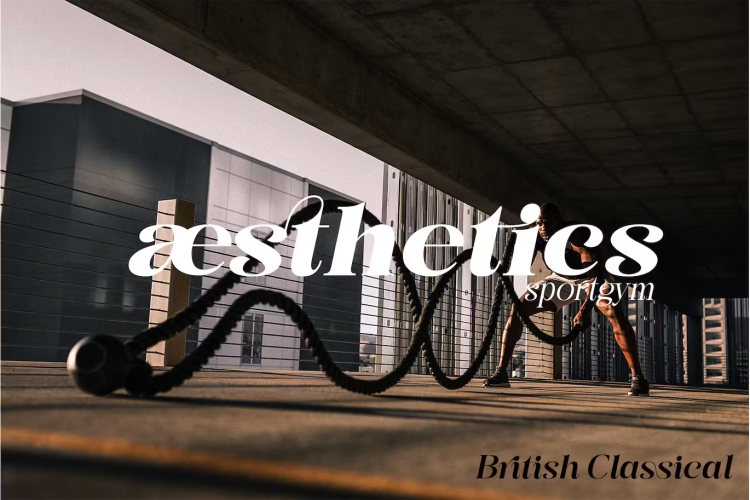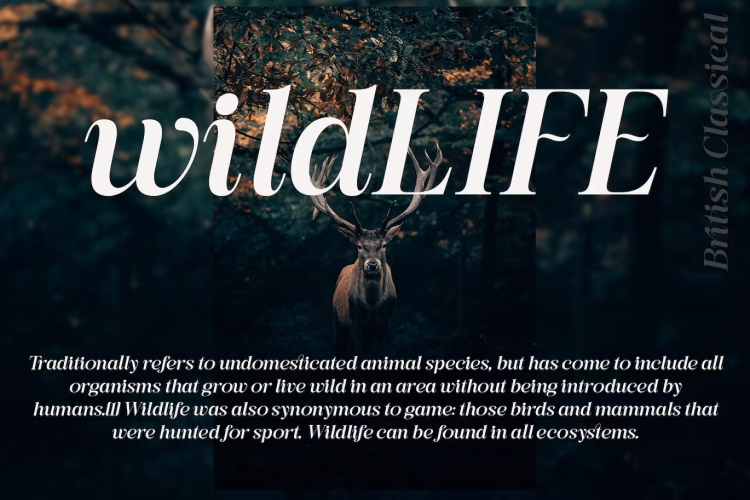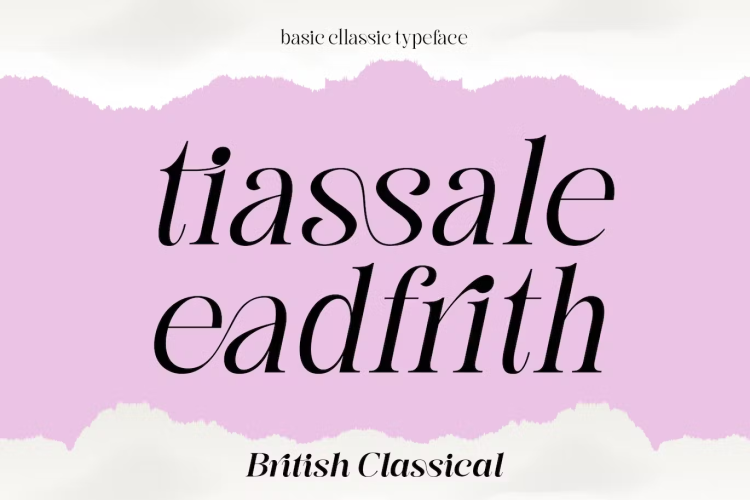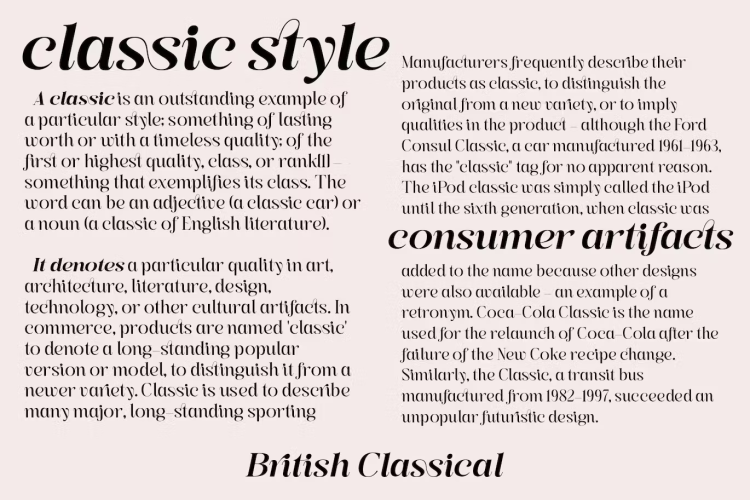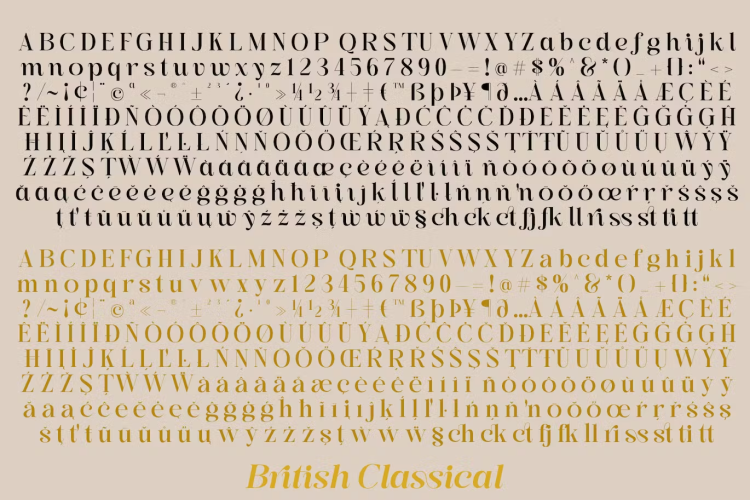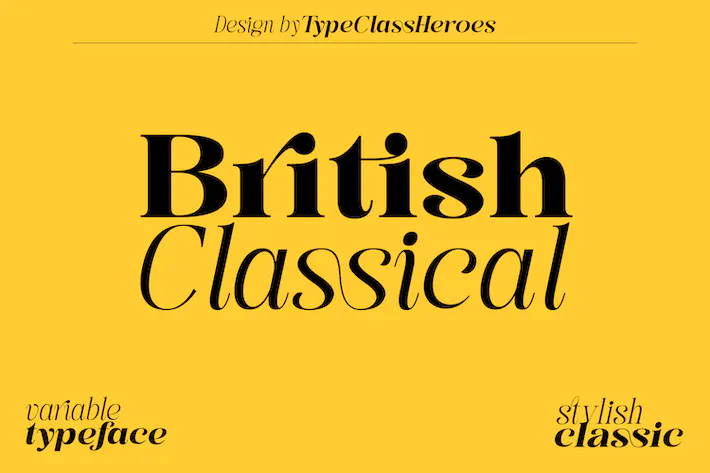
British Classical Font
Really excited to introduce British Classical and British Classical Neue is a Classic feat Modern serif family. It’s clean and smooth with 3 variable weight combining the regular and italic and much alternative inside. Suitable to create any branding, product packaging, invitation, quotes, label, poster, logo etc.
Where British Classical Font works best
Reports, white papers and book interiors hold the eye longer when the text face has real serifs; British Classical Font keeps that rhythm without looking old-fashioned.
Food, spirits and cosmetics brands lean on serif wordmarks to suggest age and care. British Classical Font gives that signal at wordmark size.
Set British Classical Font for the body of an award or a diploma and keep the recipient name in a script; the pairing is what makes a document feel official.
It sits in the Serif Fonts group and reads as branding, classic, clean, modern. That makes it a candidate wherever those qualities help: headings, packaging, social graphics and brand work. Set it at the size you plan to use before deciding.